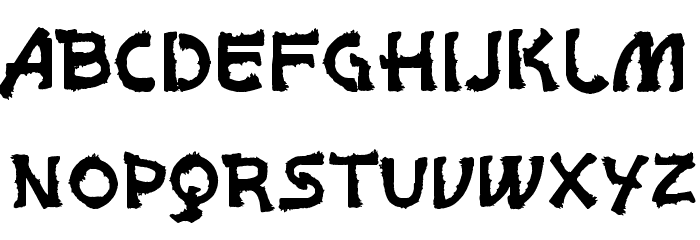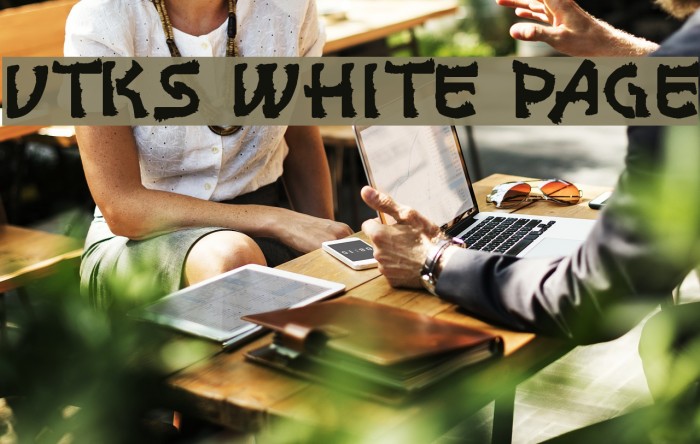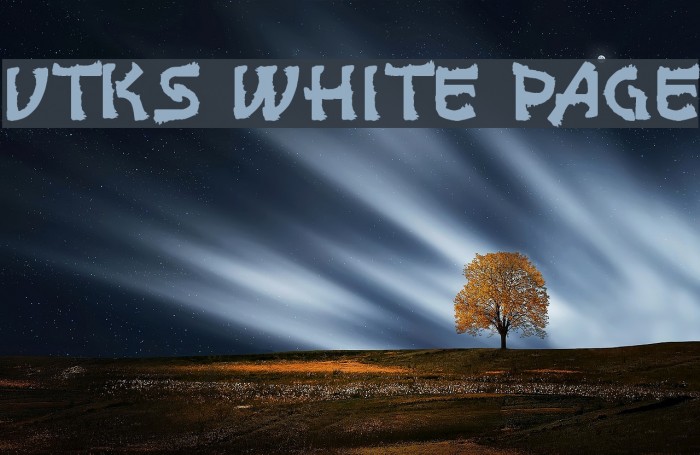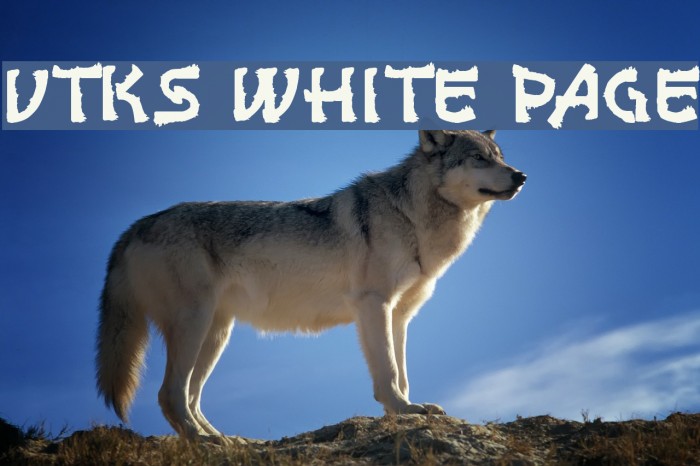
vtks white page Font
This font features a bold and rugged design, characterized by its rough, textured edges and uneven strokes. The letters have a hand-drawn appearance, giving them a raw and organic feel. The uppercase and lowercase characters maintain a consistent style, with a slightly distressed look that adds to the font's unique personality. The numerals and special characters follow the same aesthetic, ensuring a cohesive appearance across all text elements. This font's distinctive style makes it stand out, perfect for projects that require a bold and unconventional look.
A bold, rugged font with a hand-drawn, textured appearance.
- Proposed Projects: Ideal for posters, album covers, branding, and any project needing a bold, artistic touch.